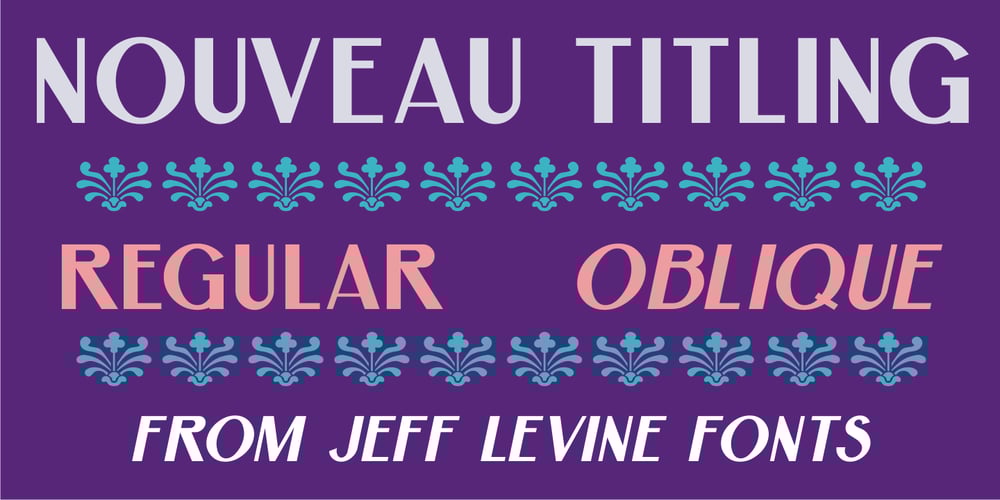
Nouveau Titling JNL Font Family was designed by Jeff Levine and published by Jeff Levine. Nouveau Titling JNL contains 2 styles and family package options. Sheet music for 1907’s “Just A Little Fond Affection” had the song title hand lettered in a simple sans serif design with influences from the then-current Art Nouveau movement. This is now available as Nouveau Titling JNL; available in both regular and oblique versions.